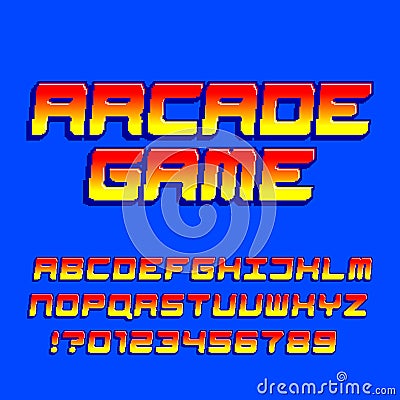
Arcade Computer Game Alphabet Font. Pixel Gradient Oblique Letters And Numbers. Cartoon Vector
Arcade computer game alphabet font. Pixel gradient oblique letters and numbers. 80s retro video game typescript.